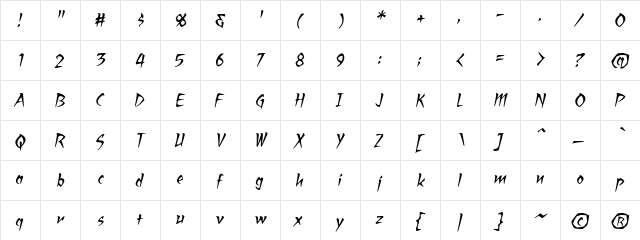
RagingRedLotus BB Italic
| Foundry | Nate Piekos. Blambot.com |
| Designer | Nate Piekos |
Design Context for RagingRedLotus BB Typeface
RagingRedLotus BB is a composed and adaptable typeface that performs quietly and consistently across a wide range of design contexts. Its italic angle brings a sense of urgency and motion to the letterforms.
Pro Tip: Try RagingRedLotus BB for annotation and caption copy alongside an upright companion — the contrast in angle creates a dynamic but ordered typographic system.